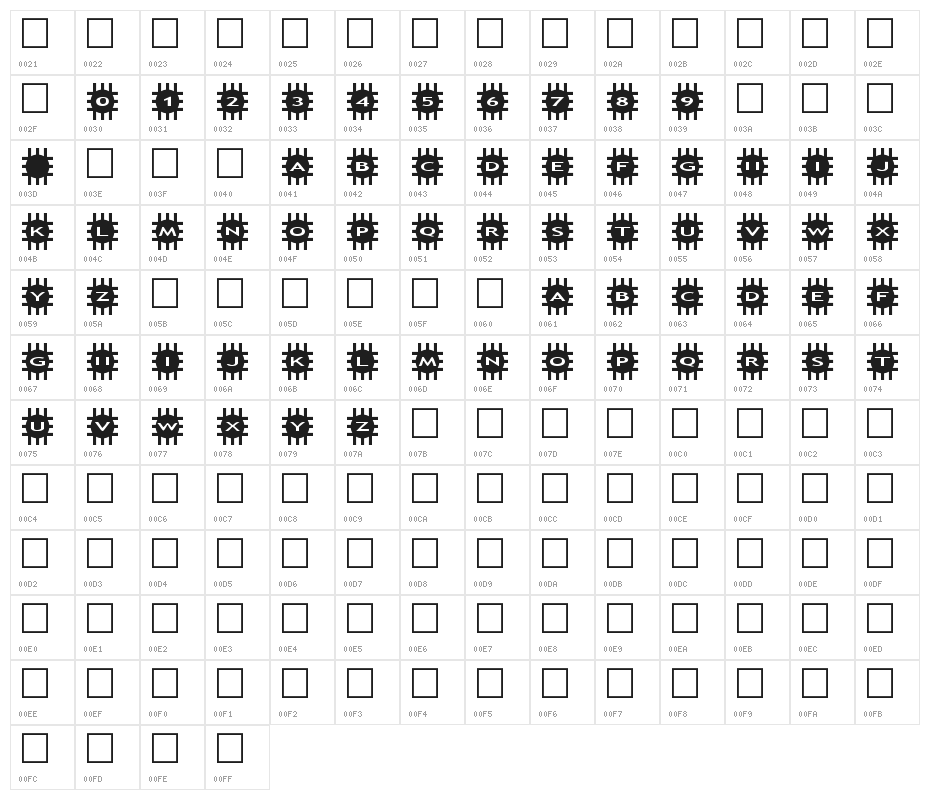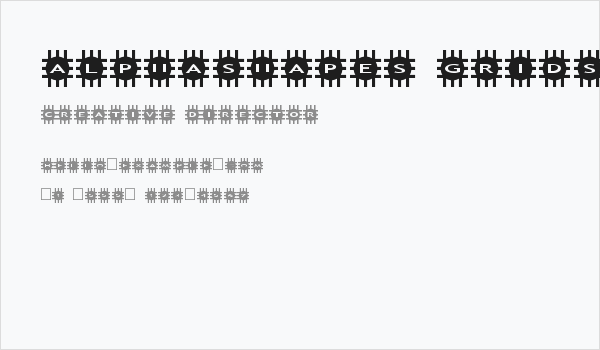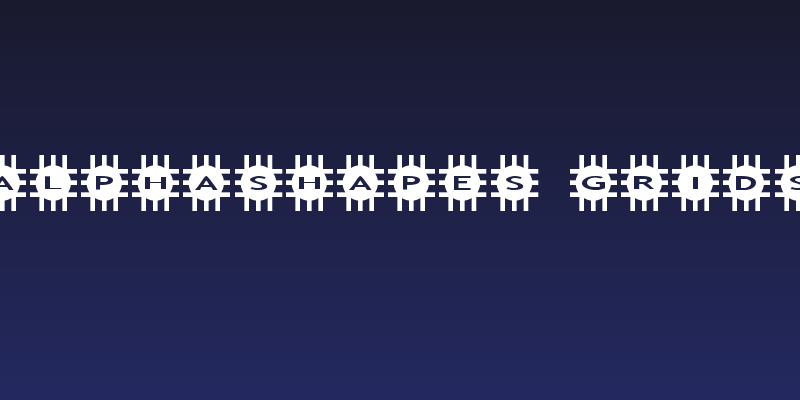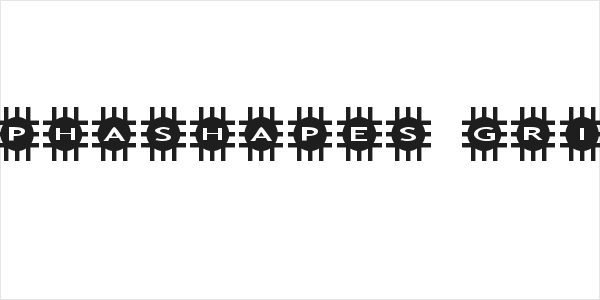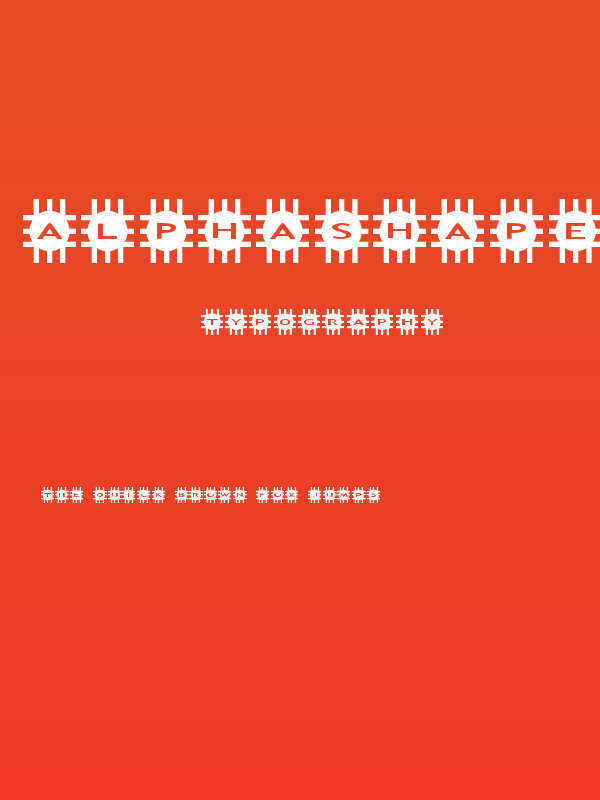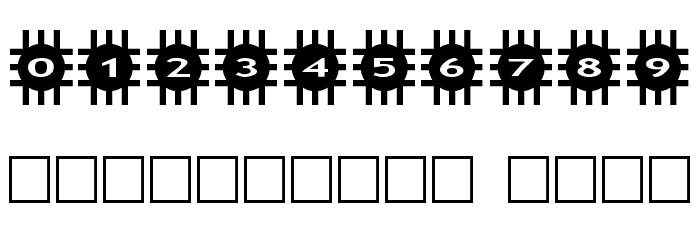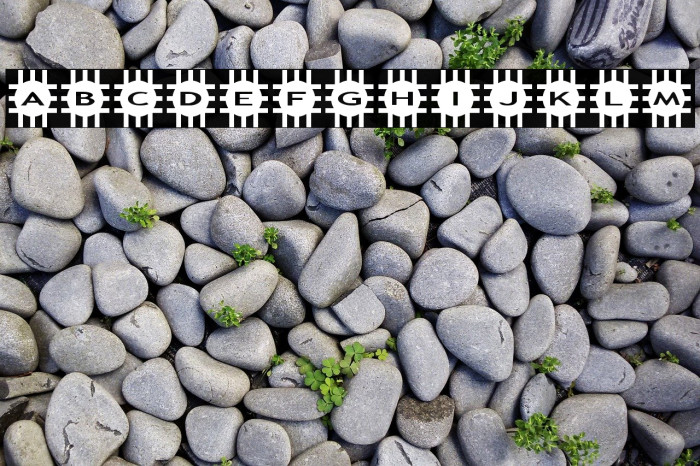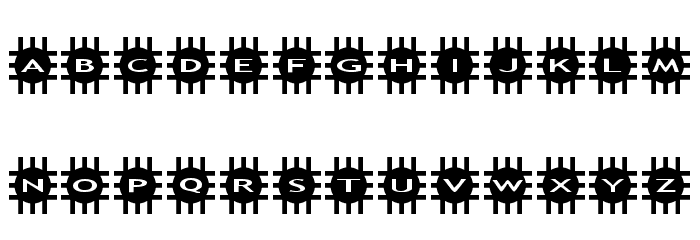
AlphaShapes grids Font
AlphaShapes grids Description
This font features a highly decorative and bold style, characterized by a grid-like pattern overlaying each character. The letters and numbers are encapsulated within a series of intersecting lines, creating a unique and striking visual effect. The design is consistent across all characters, maintaining a uniform appearance that emphasizes its geometric and structured nature. This font is particularly eye-catching and would stand out in any design project that requires a bold statement.
| Proposed Projects | Ideal for modern art projects, posters, album covers, or any design requiring a bold and unique typeface. |